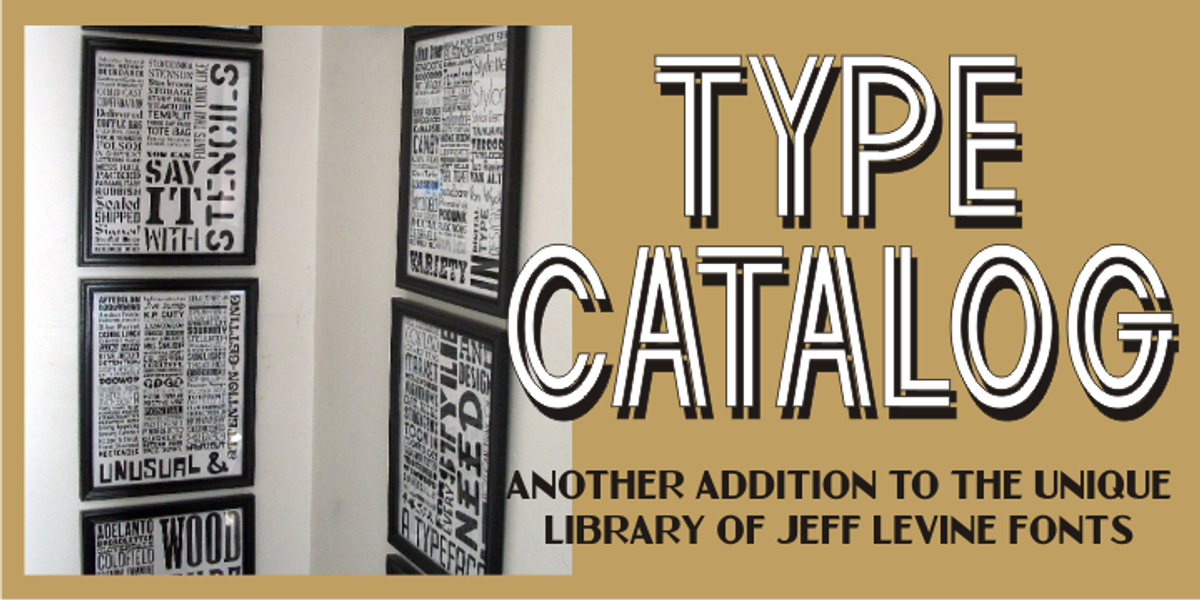
Type Catalog JNL
Type Catalog JNL was originally a design drawn by Jeff Levine around 2006, but given to Jeff's friend and fellow designer Ray Larabie (Typodermic and Larabie Fonts) to work on as a future release.
Ray never did anything with this inline sans, so he was happy to let Jeff once again take over the project. Re-drawing all of the initial characters and completing an extended character set, Type Catalog JNL has a distinctively retro look for many applications.